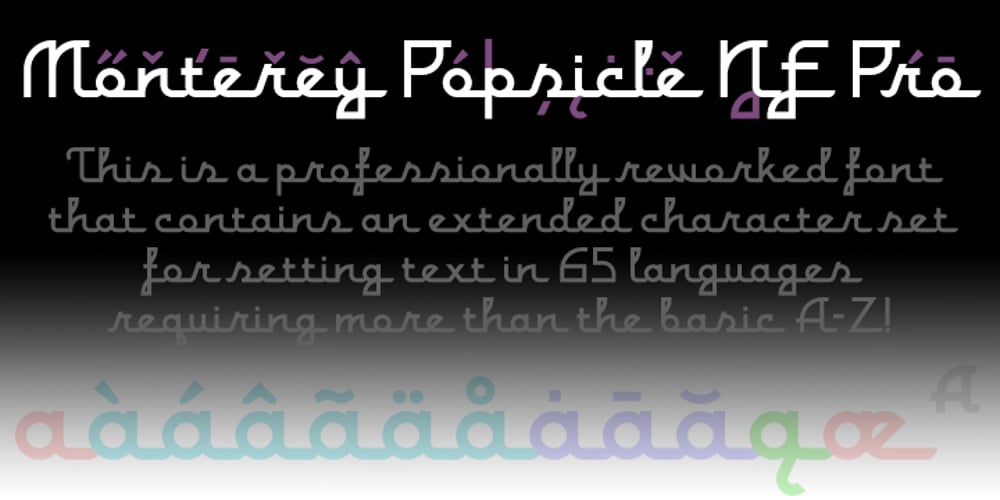
Monterey Popsicle NF Pro
Monterey Popsicle NF Pro font
Monterey Popsicle NF Pro Font Family was designed by Nick Curtis, Roger S. Nelsson and published by CheapProFonts. Monterey Popsicle NF Pro contains 1 styles and family package options. A faux script font typical of classic american branding. I have totally reworked all the letterforms: they started with a “notch” and ended flat – I have removed the “notch” and rounded off the ending stroke, so now you can actually start words with the lowercase letters. I have also improved the spacing (especially after the capitals), and of course added all the “foreign” glyphs. A classic is reborn! Nick Curtis says: “Just another “somewhere from the thirties to the fifties” kinda script, named kinda after a sixties rock festival.” ALL fonts from CheapProFonts have very extensive language support: They contain some unusual diacritic letters (some of which are contained in the Latin Extended-B Unicode block) supporting: Cornish, Filipino (Tagalog), Guarani, Luxembourgian, Malagasy, Romanian, Ulithian and Welsh. They also contain all glyphs in the Latin Extended-A Unicode block (which among others cover the Central European and Baltic areas) supporting: Afrikaans, Belarusian (Lacinka), Bosnian, Catalan, Chichewa, Croatian, Czech, Dutch, Esperanto, Greenlandic, Hungarian, Kashubian, Kurdish (Kurmanji), Latvian, Lithuanian, Maltese, Maori, Polish, Saami (Inari), Saami (North), Serbian (latin), Slovak(ian), Slovene, Sorbian (Lower), Sorbian (Upper), Turkish and Turkmen. And they of course contain all the usual “western” glyphs supporting: Albanian, Basque, Breton, Chamorro, Danish, Estonian, Faroese, Finnish, French, Frisian, Galican, German, Icelandic, Indonesian, Irish (Gaelic), Italian, Northern Sotho, Norwegian, Occitan, Portuguese, Rhaeto-Romance, Sami (Lule), Sami (South), Scots (Gaelic), Spanish, Swedish, Tswana, Walloon and Yapese.